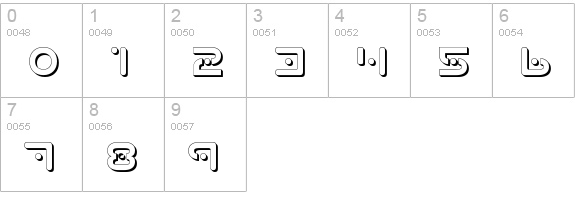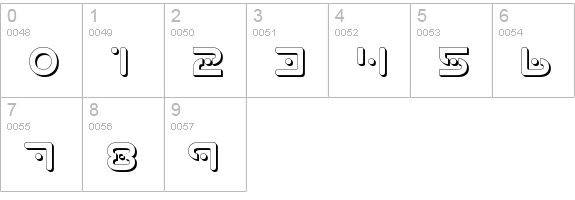
Planet X Shadow Font Details
Planet X Shadow font is a captivating and enigmatic typeface that adds an air of mystery and intrigue to any design project. With its bold and striking letterforms, this font is perfect for creating attention-grabbing headlines, logos, and posters. The unique shadow effect gives the letters a three-dimensional quality, adding depth and dimension to your typographic compositions. Each character is meticulously crafted, with sharp angles and clean lines, making it both modern and timeless. Planet X Shadow font is not only visually striking, but also highly versatile. It can be used in a wide range of design applications, from branding and advertising to editorial design and packaging. Whether you're working on a futuristic sci-fi project or a dark and edgy design, this font will bring your ideas to life. One of the best things about Planet X Shadow font is that it is available for free. You can easily download it at FontsMarket.com, a trusted source for high-quality fonts. With just a few clicks, you can access this remarkable typeface and unleash your creativity without any cost. So why wait? Embrace the allure of Planet X Shadow font and elevate your designs to new heights. Download it for free today at FontsMarket.com and let your imagination run wild.